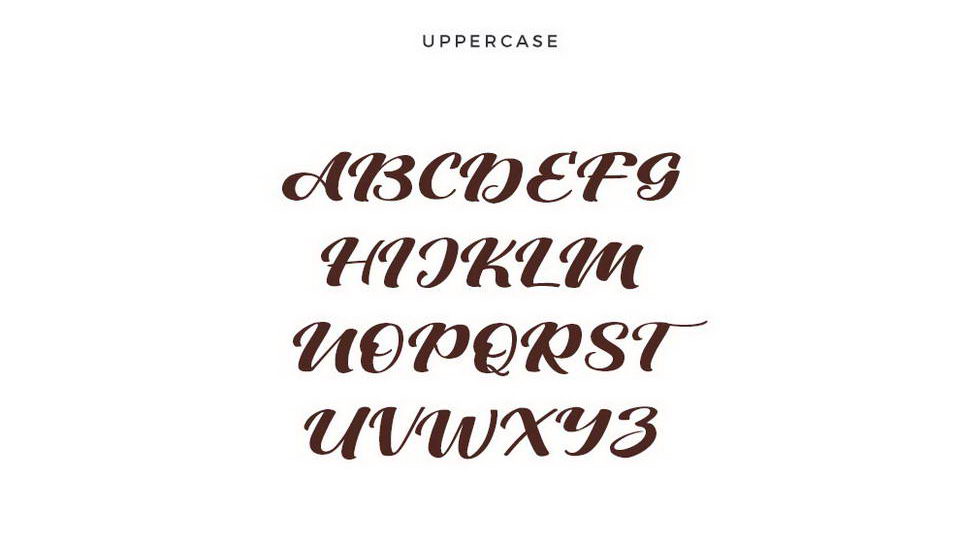
Viksi Script Font
Viksi - a free beautiful modern calligraphy hand lettered script font. It comes with uppercase and lowercase letters, numerals and symbols, supports multilanguage.  This bold but elegant font suitable for wedding invitation, greeting cards, watercolor based design, logos, social media, posters, handcrafred and other creative designs.